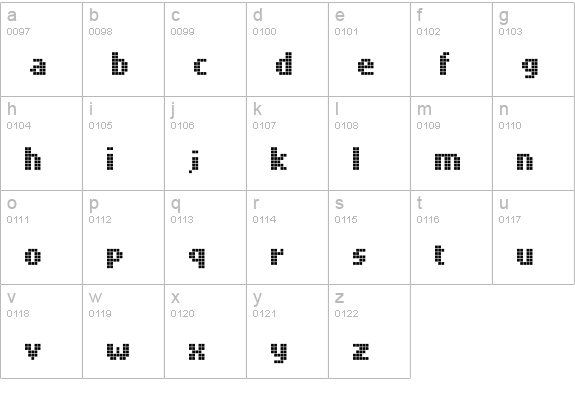
quant Font Details
Introducing Quant Font, a sleek and modern typeface that is perfect for any design project. With its clean lines and geometric shapes, this font exudes a sense of professionalism and sophistication. Whether you're creating a logo, website, or print materials, Quant Font will elevate your design and make a lasting impression. But what sets Quant Font apart from other typefaces is that it is not only visually stunning, but also free to download. That's right, this incredible font can be yours without having to spend a dime. You won't find a better deal anywhere else! The versatility of Quant Font is another reason why it is a must-have in your font collection. It works well in both large headlines and small body text, ensuring that your message is easily readable and impactful. The carefully crafted letterforms provide excellent legibility, making it suitable for a wide range of applications. And don't worry about compatibility issues. Quant Font is available in multiple file formats, including TTF and OTF, ensuring that it can be used on various platforms and software. Whether you're a professional designer or a hobbyist, this font is easily accessible and user-friendly. So why wait? Download Quant Font today and give your designs the professional touch they deserve. You can find this font, along with many other amazing fonts, freely available to download at FontsMarket.com. Don't miss out on this incredible opportunity to enhance your design projects with a high-quality, visually stunning font. Get Quant Font now and take your designs to the next level!